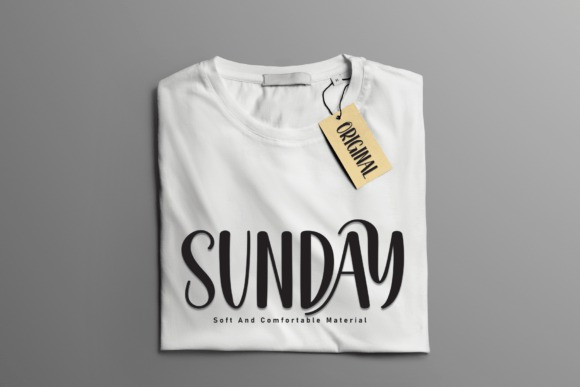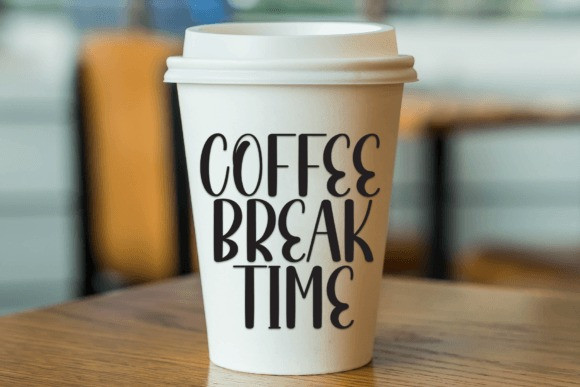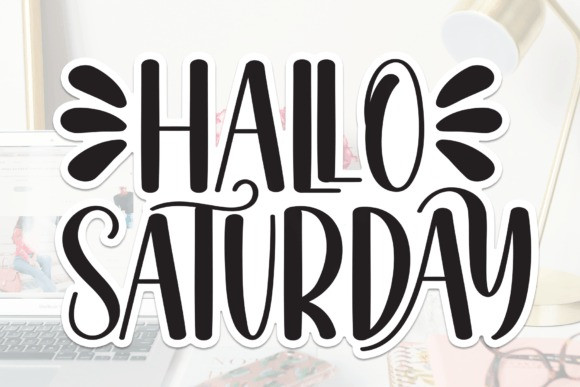
Hallo Saturday Font
Hallo Saturday Font is a sweet and friendly handwritten font. Its natural and unique style makes it incredibly fitting to a large pool of designs. The only limit is your imagination!